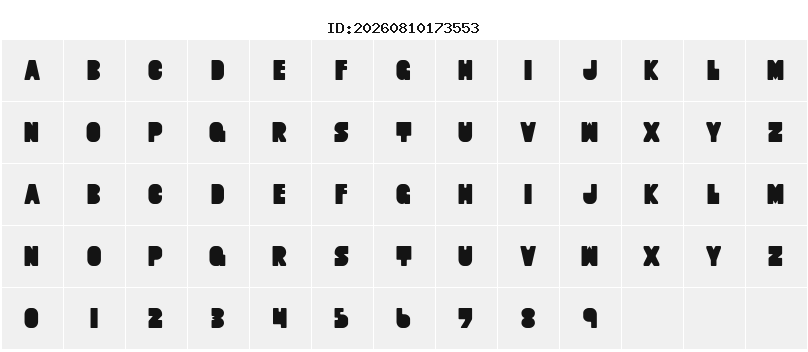
About Quart07 by Norwegian Ink.ttf
Quart07 by Norwegian Ink.ttf is a modern, elegant sans-serif font designed for ultimate readability and visual harmony. Perfect for branding, headlines, web design, and print materials.